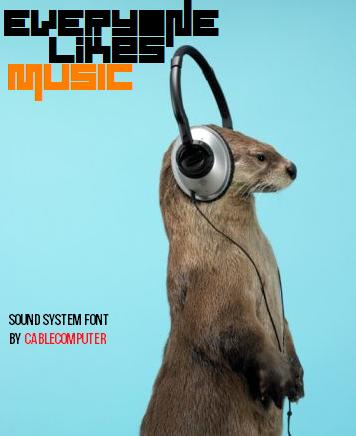
Nice, solid square font. I would add a horizontal line at the bottom of R.
Nicely balanced, with good alternates. Would it be an idea to give the alternate O a hollow centre?
Cool. I like the lower case alternates very much. Maybe do some more ascenders and descenders? Letters like H, K, L, P, R, T, U and/or V might work work well with them. And I second p2pnut's suggestion about the O.
10/10!
Excellent one Cable. I like the "audio" feeling rended here with a great sense of economy. It reminds me some of my own pixel experiments, but not published as such because i always need to make them go baroque. 10/10
@p2pnut, @CMunk: Thanks! I agree to both you two. But, the letter O with hollow center has already used for letter "D" and "0", but I will think about it...
I wondered about a slimline centre for the O?
Smart idea, P2Pnut, even if personally i like very much the "logo-like" actual all black "o".
p2pnut@: Personally I like your idea, but that's doesn't fit with the entire glyphs. But I'm still updating and maybe I will put your own glyphs.
Great techno, square font, 10/10!
I also wanted to come up with some suggestions, but then they were so many, so I ended up with fontstructing my own, but with 2X2 filters and on much smaller grid. What y'all think? Here:
No offense Architaraz, but that 'I' looks like a penis.
Cool! I think you can clone this and make your own and then publish it. But I will try some of your suggestions. Thx!
I accidentally found two fonts that accidentally very similar to this font: